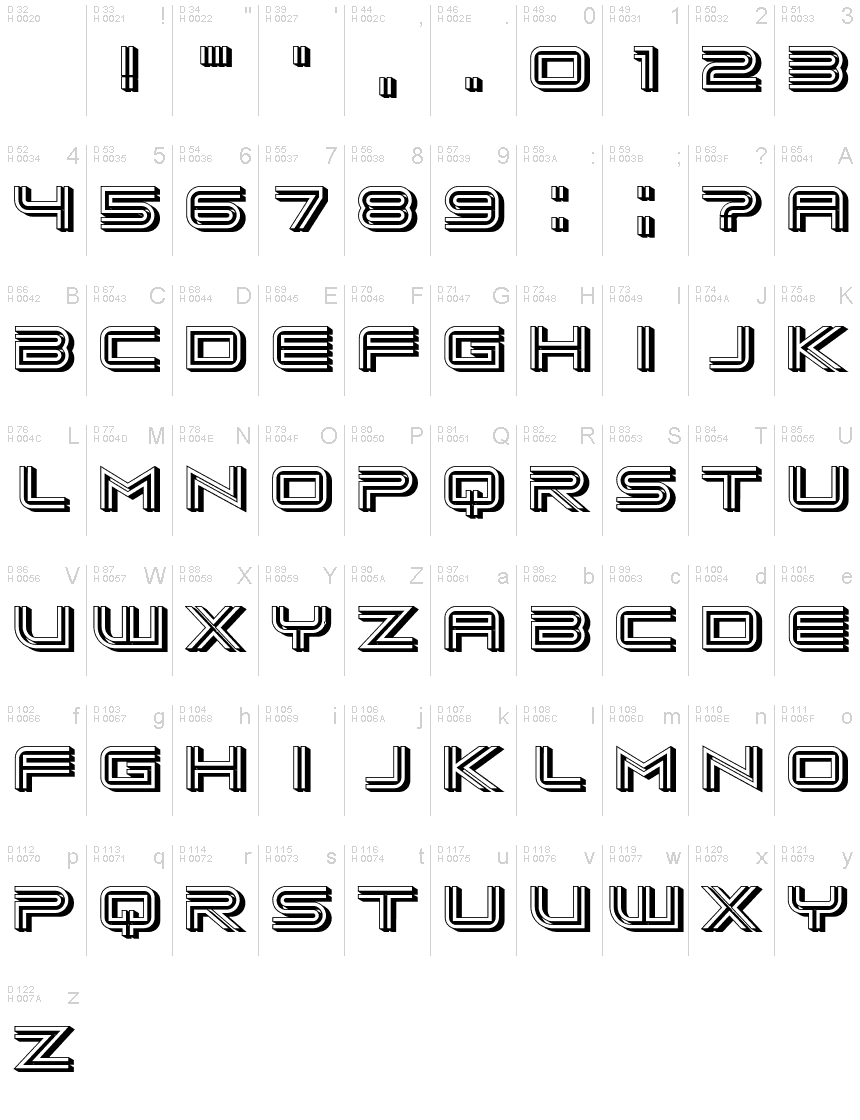
Buvlak Regular
Buvlak, designed by the talented Vladimir Nikolic, stands out as a bold display font with an extra-expanded width that commands attention. Its striking appearance is characterized by strong vertical emphasis and pronounced contrast, giving it a contemporary edge with a nod to geometric design principles. The font's significant weight and clean lines contribute to its high-impact visual appeal, making it a perfect choice for headlines, posters, and branding projects where making a statement is key.
With Buvlak's distinctive style—combining clarity with an avant-garde flair—it offers versatility for designers looking to infuse their work with modern sophistication. Whether applied in digital media or print, this font has the potential to elevate creative projects across various industries. From fashion labels to tech startups, Buvlak's robust form ensures readability while its unique character adds personality and strength to any design.
In summary, Buvlak is not just a typeface but an artistic tool that can transform words into visually captivating messages. Its aesthetic appeal lies in the balance of boldness and simplicity—making it as impactful as it is elegant.